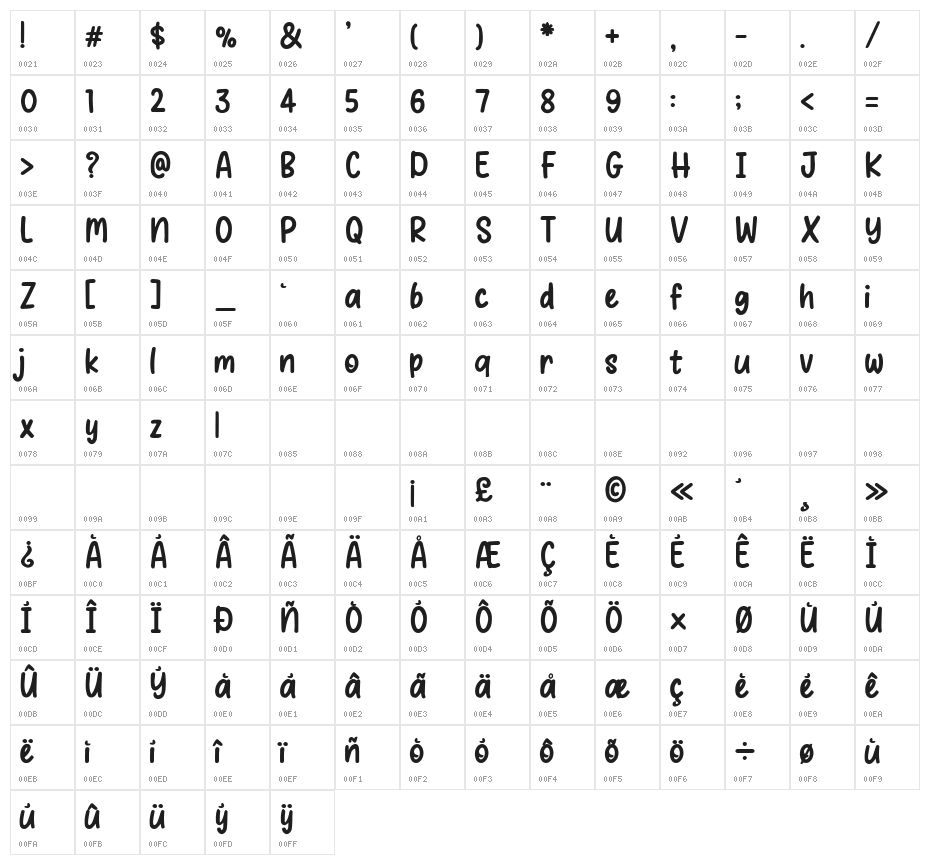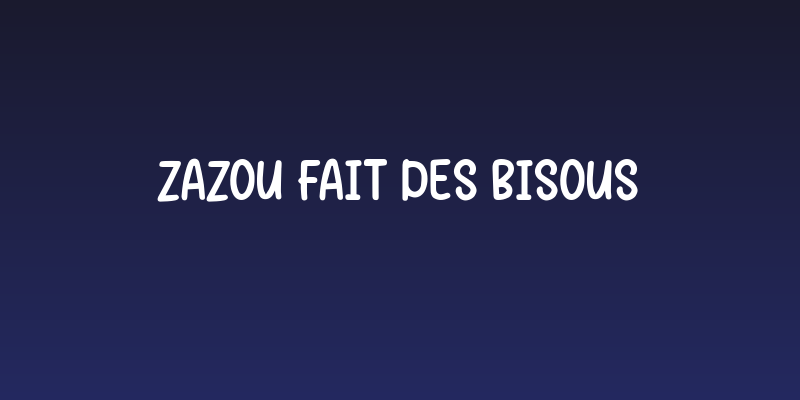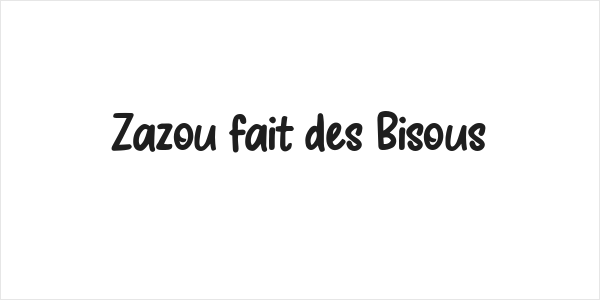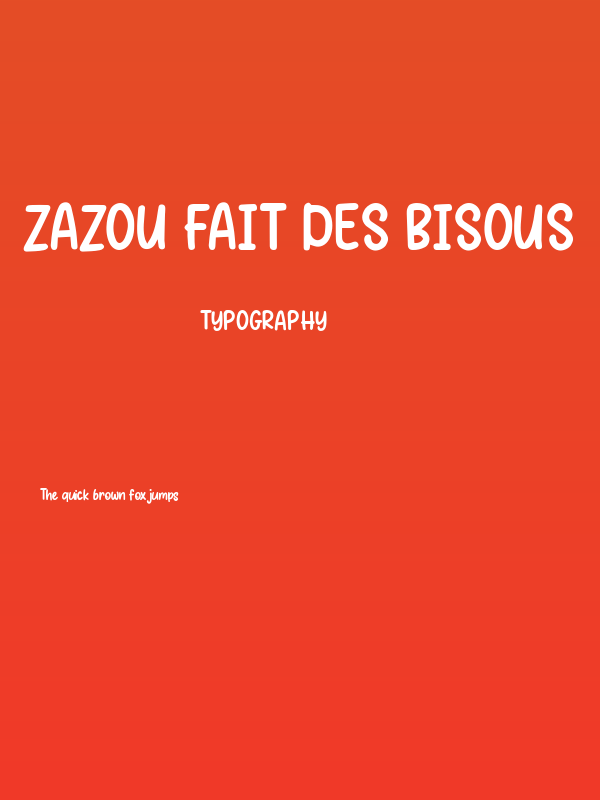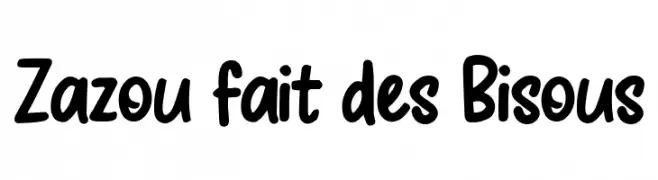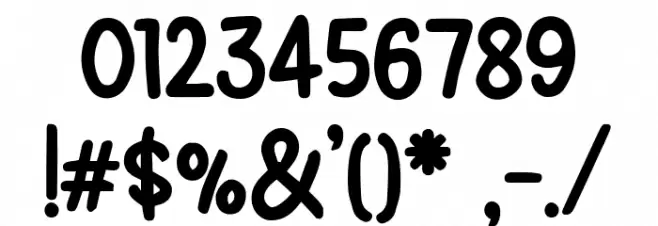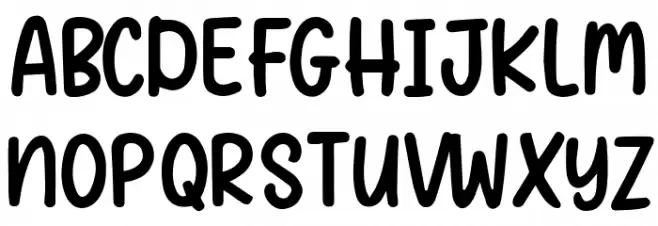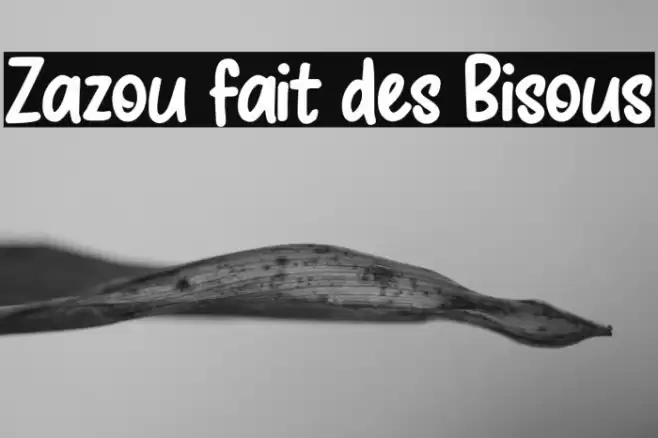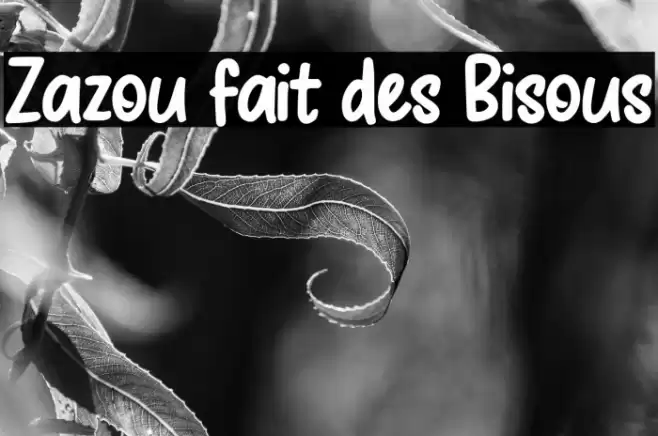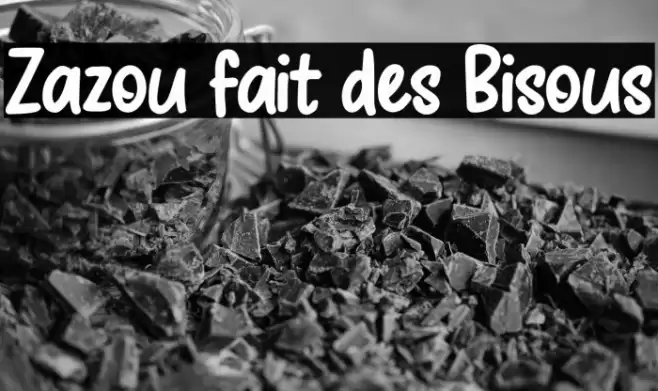
Zazou fait des Bisous Font
Zazou fait des Bisous Description
A playful, rounded, handwritten style font with a casual and friendly appearance.
| Overall Style | Casual, Friendly, Playful |
| Use Case | Headlines, Body text, Logos, Invitations |